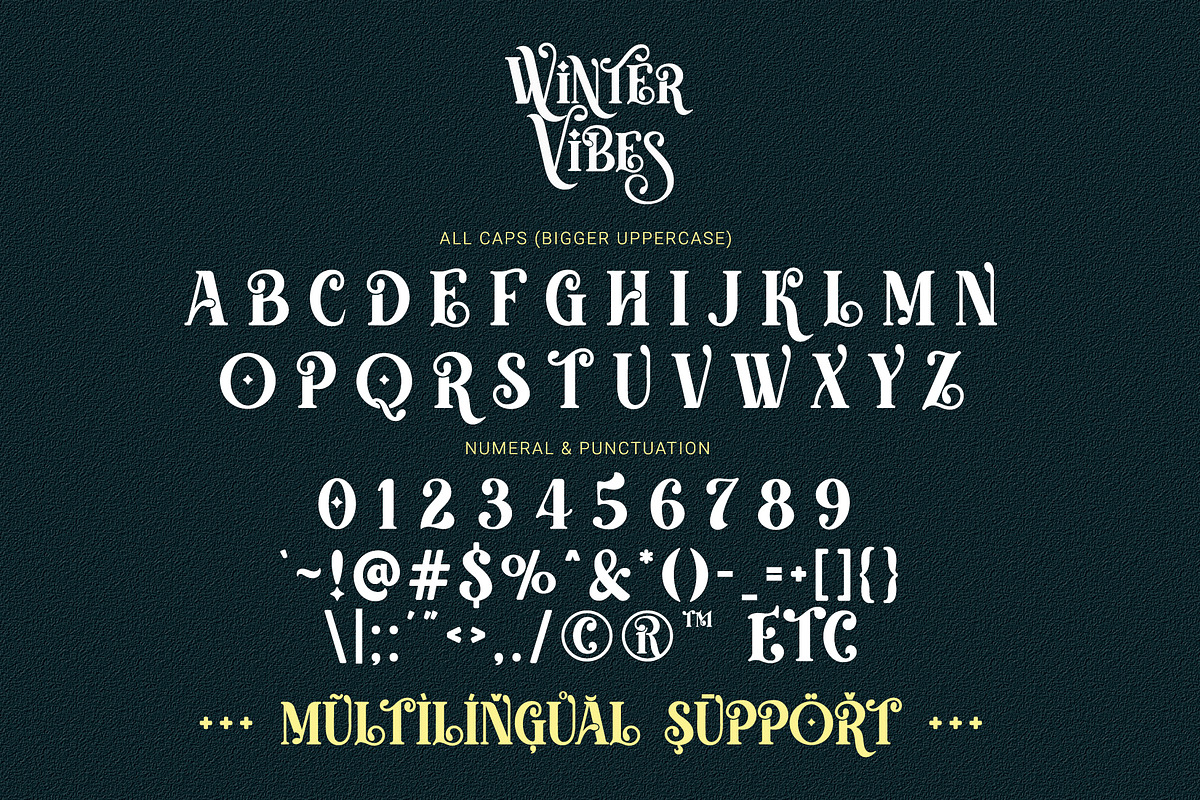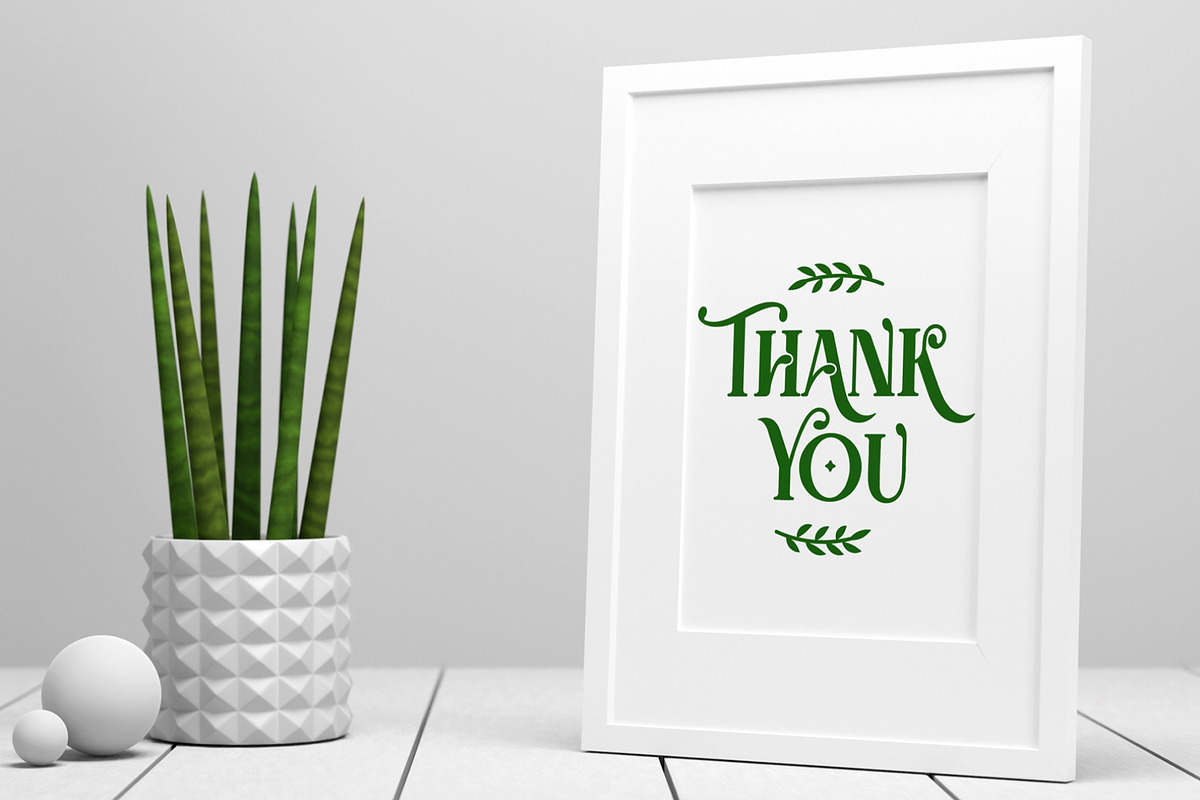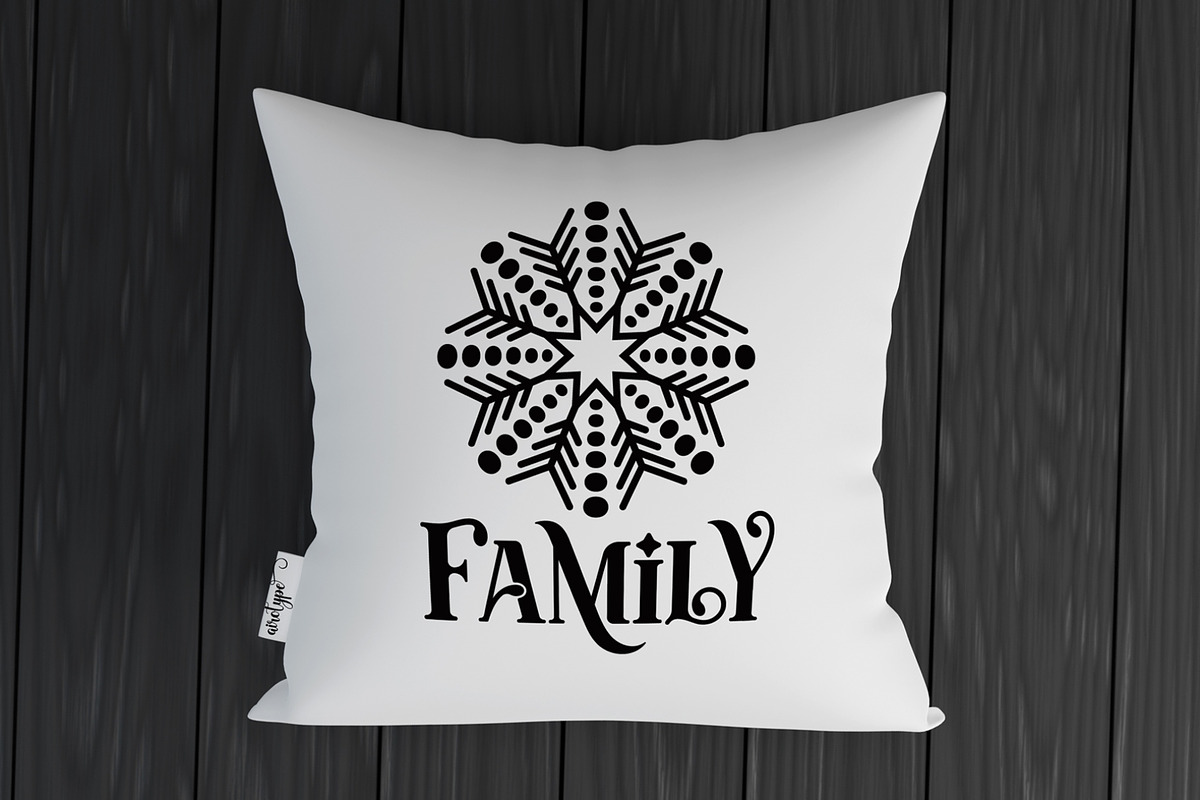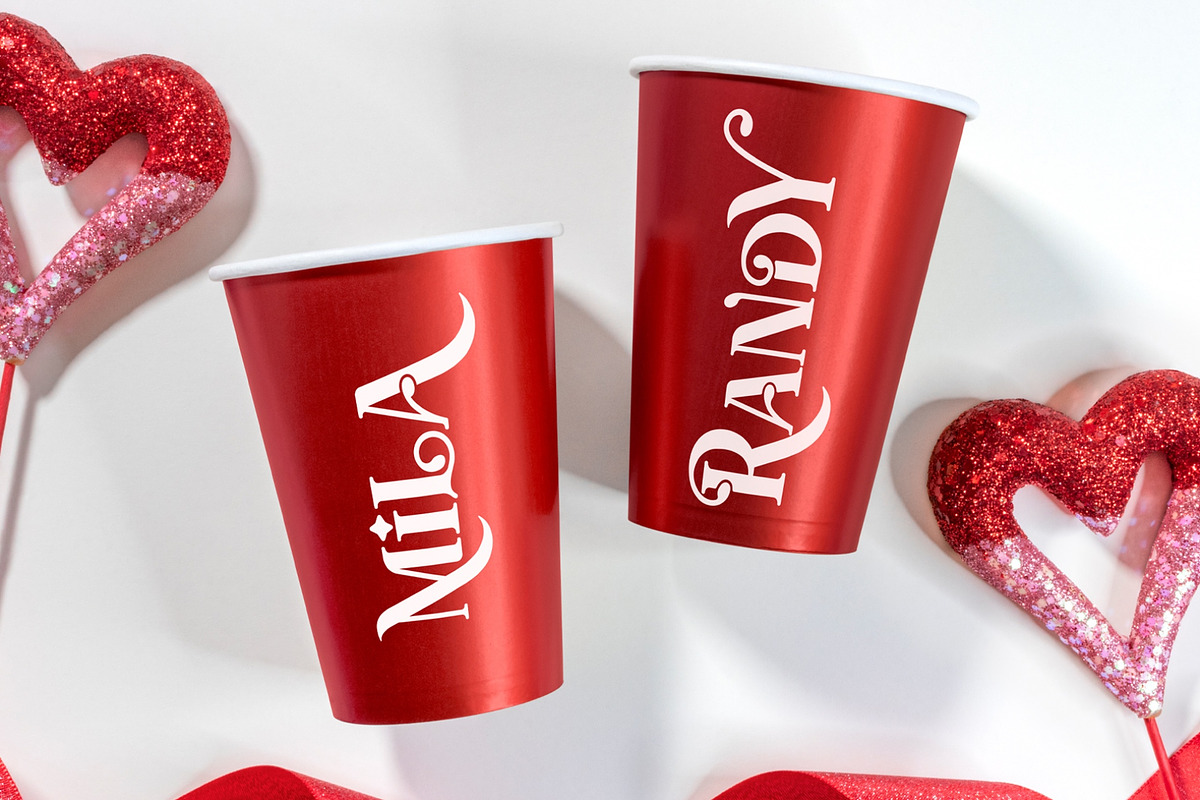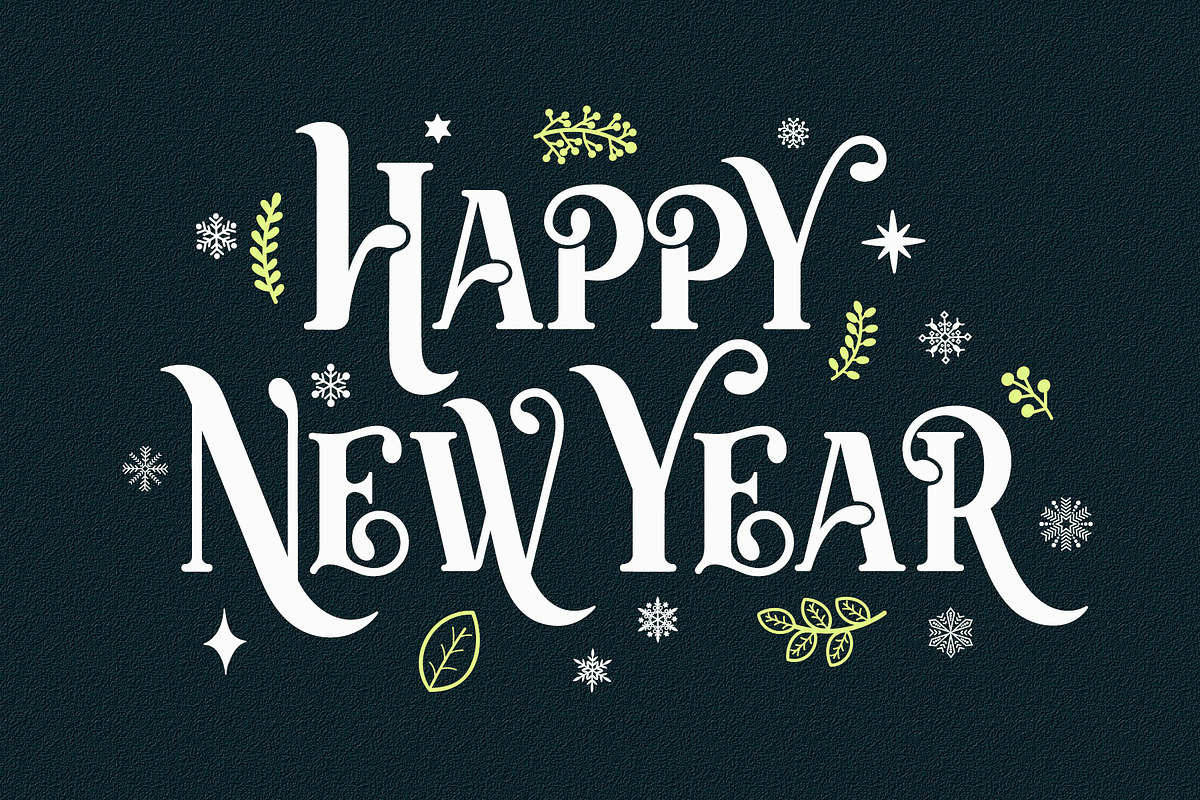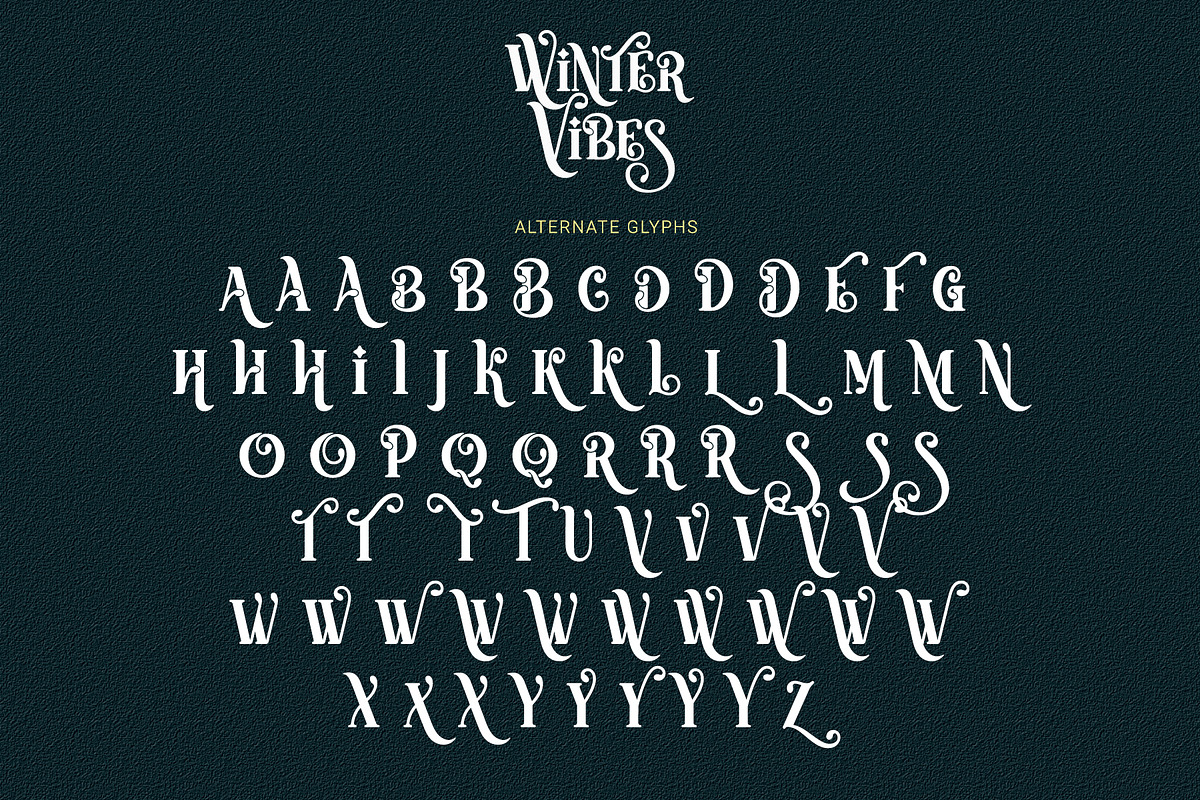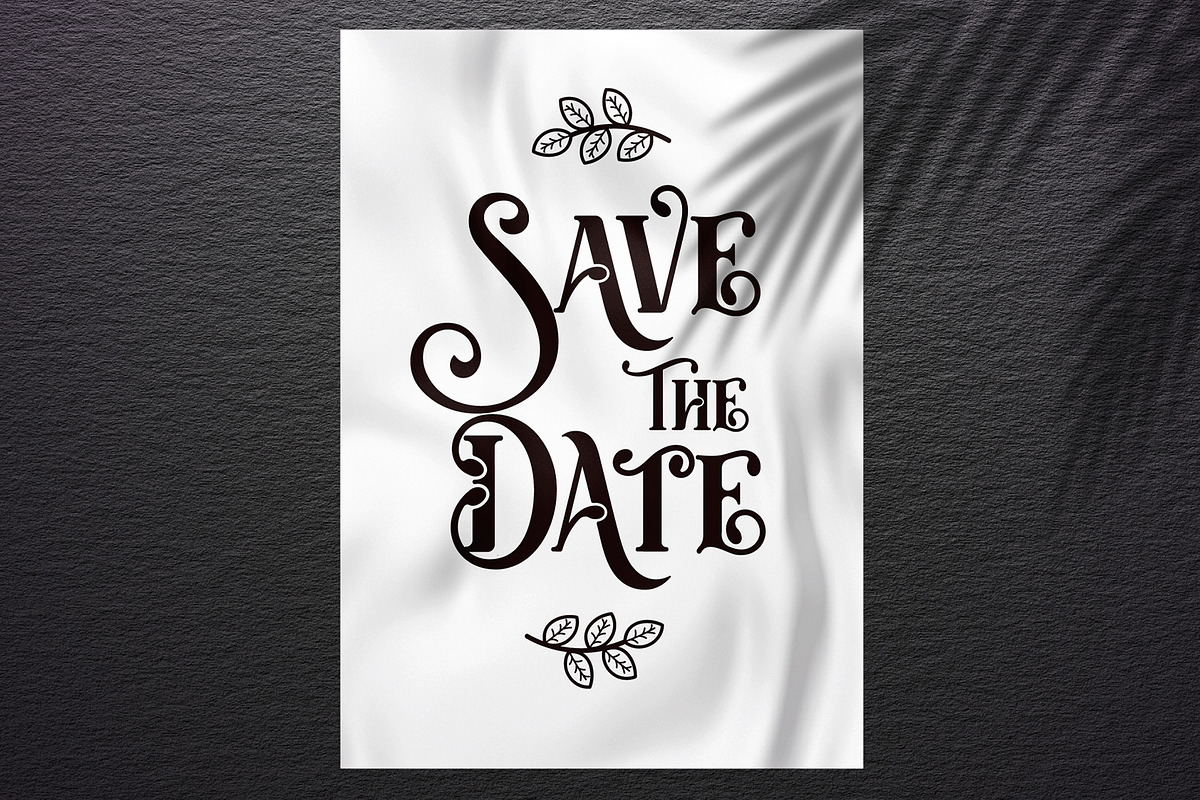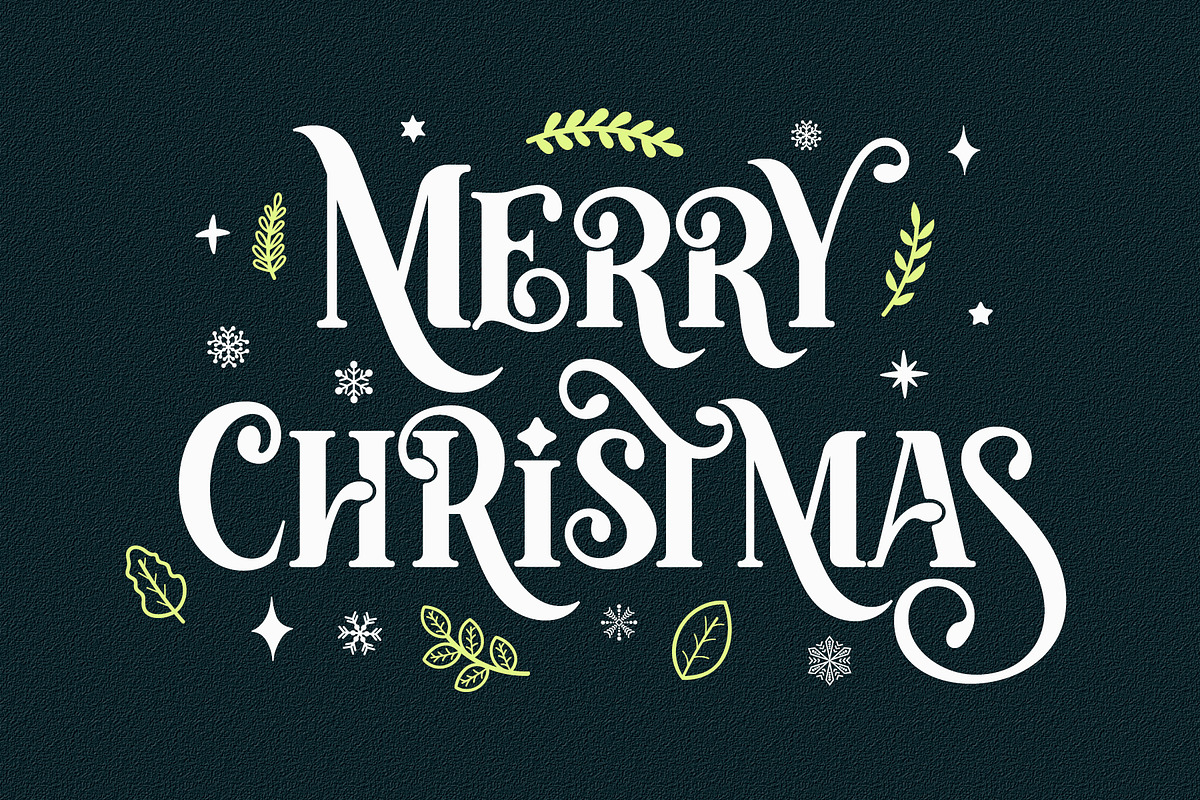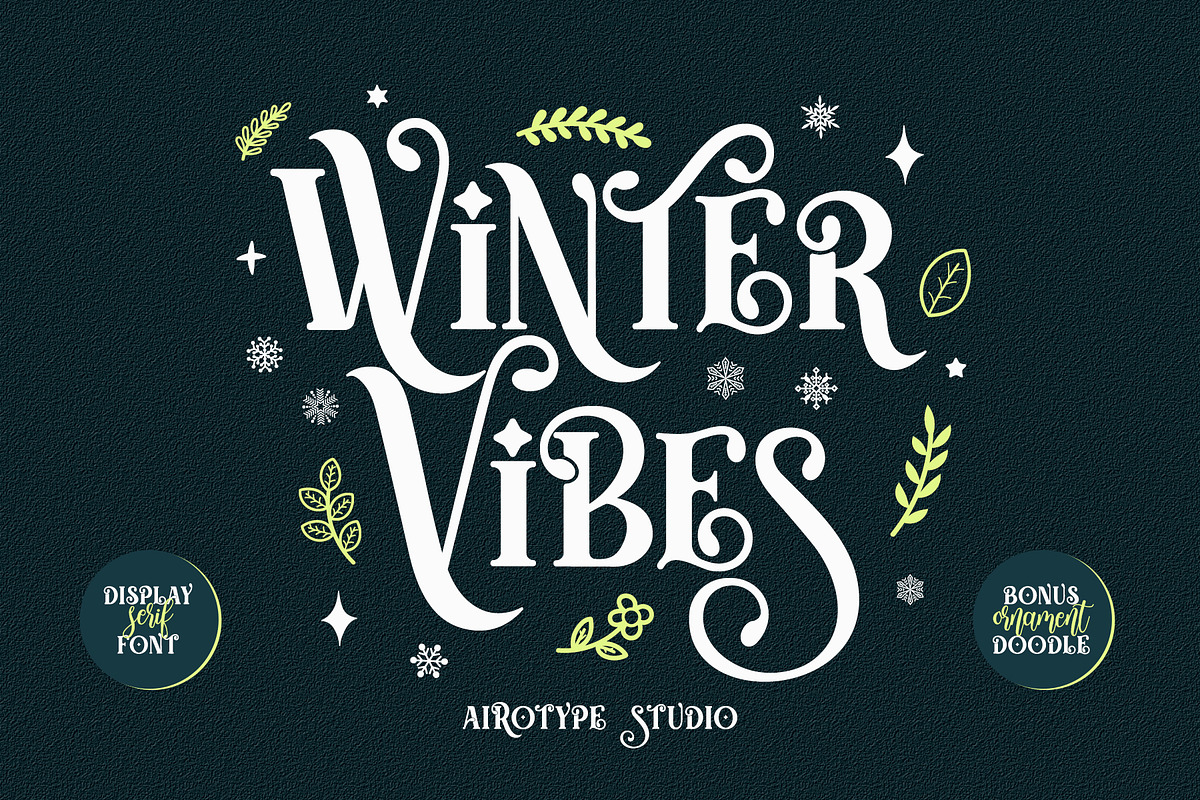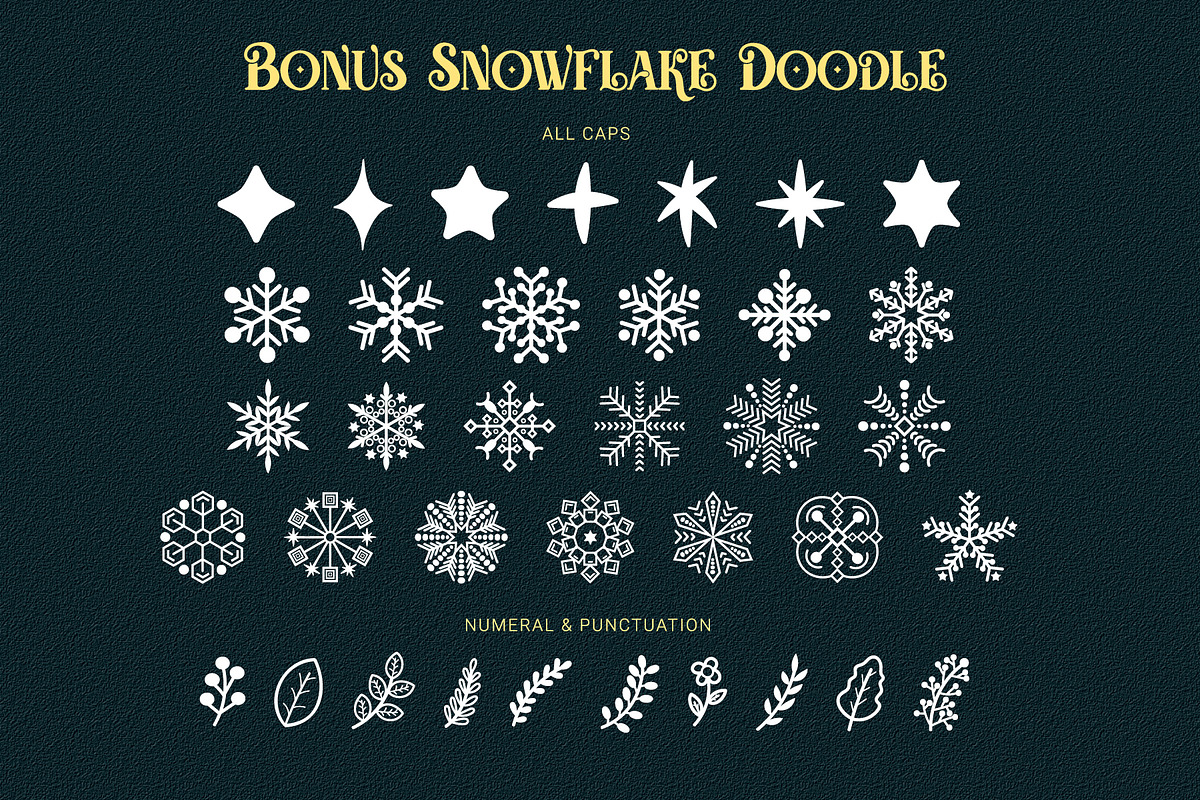
Winter Vibes - Modern All Caps Serif
Winter Vibes is modern and elegant display serif. This is all caps display serif font. The uppercase is bigger than the lowercase.
Feel the vibes of modern and elegant and make your design standout with this font.
It also has bonus doodle/ornament in OTF/TTF files to give you more options in designing, especially in winter craft or christmas craft.
This font is nice choice for the elegant design, such as Christmas design, wedding, invitation, and many more.
All Caps (bigger uppercase)
Numeral and Punctuation
Most Multilingual Accent